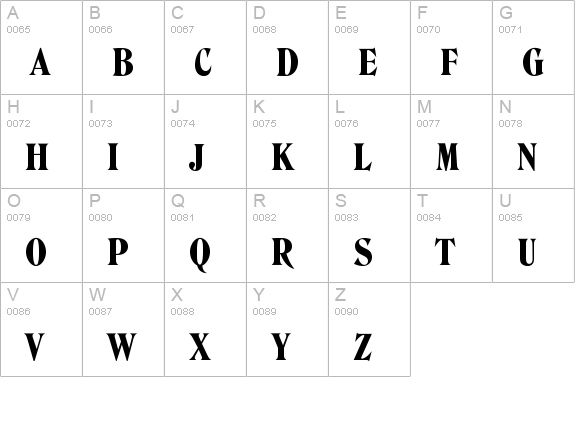
HawthornEF Font Details
Introducing HawthornEF, a stunning font that effortlessly combines modern elegance with a touch of classic refinement. This versatile typeface is perfect for a wide range of design projects, from logos and branding to editorial layouts and invitations. HawthornEF features a unique blend of clean lines and subtle curves, giving it a distinct and captivating charm. Its carefully crafted letterforms exude sophistication and professionalism, making it an ideal choice for both personal and commercial use. But what sets HawthornEF apart is not just its exquisite design, but also its accessibility. This remarkable font is available for free download exclusively at FontsMarket.com. Whether you're a seasoned designer or just starting out, you can now enjoy the beauty and versatility of HawthornEF without breaking the bank. With its extensive character set, including uppercase and lowercase letters, numerals, punctuation marks, and multilingual support, HawthornEF offers limitless creative possibilities. Its seamless integration into various design software ensures a smooth and hassle-free experience for every user. Whether you're creating captivating headlines, elegant invitations, or eye-catching social media posts, HawthornEF is the perfect choice to elevate your designs to new heights. Its timeless appeal and effortless versatility make it a must-have font for anyone seeking to make a lasting impression. So why wait? Embrace the beauty and freedom of HawthornEF today. Download this exceptional font for free at FontsMarket.com and unlock a world of design possibilities that will truly make your projects shine.